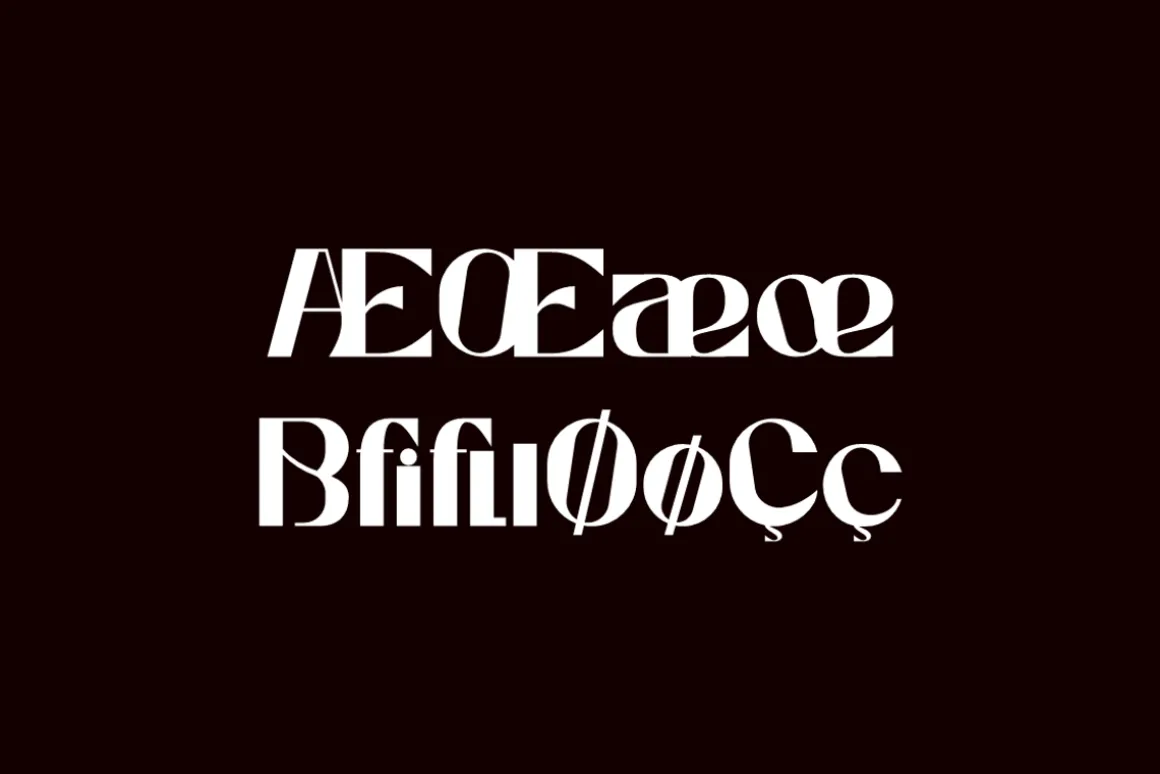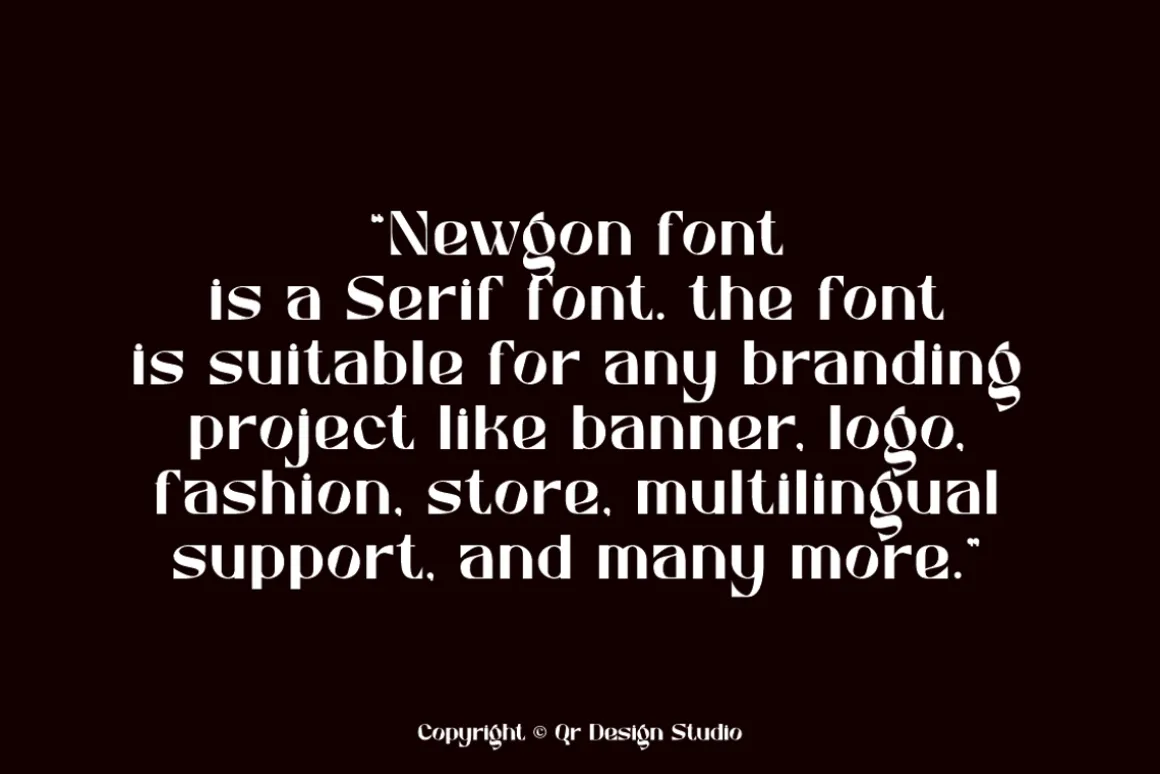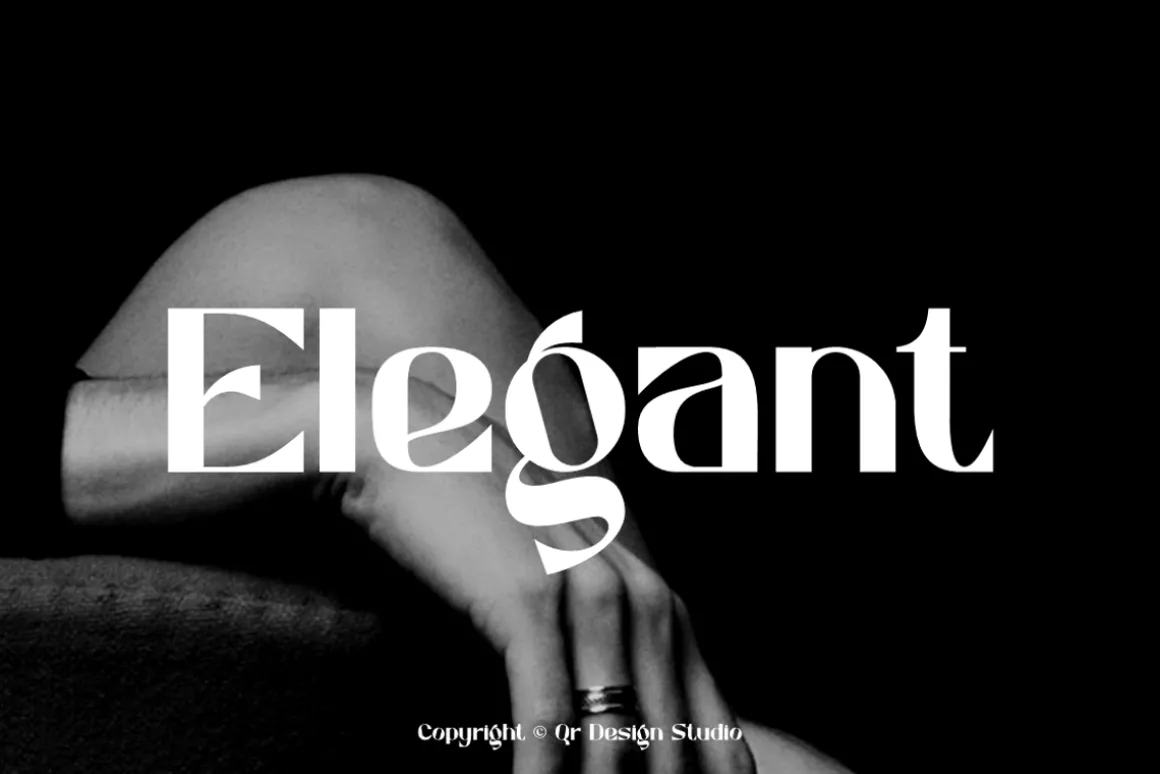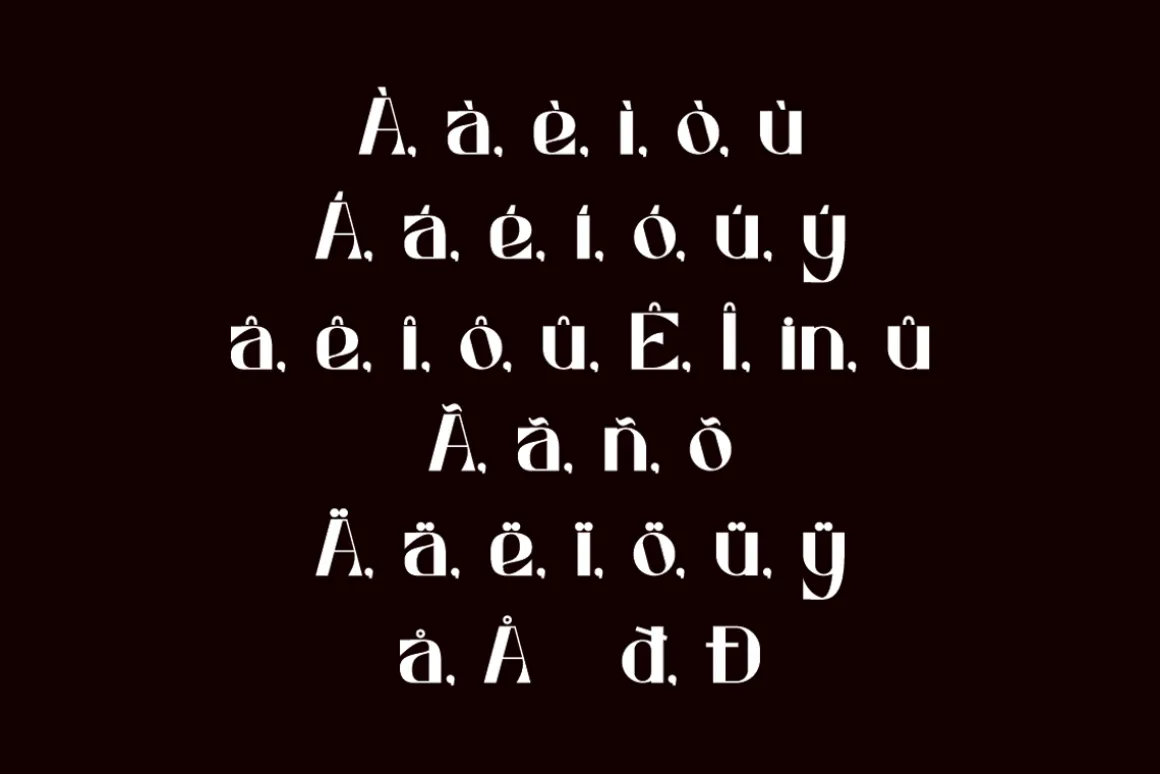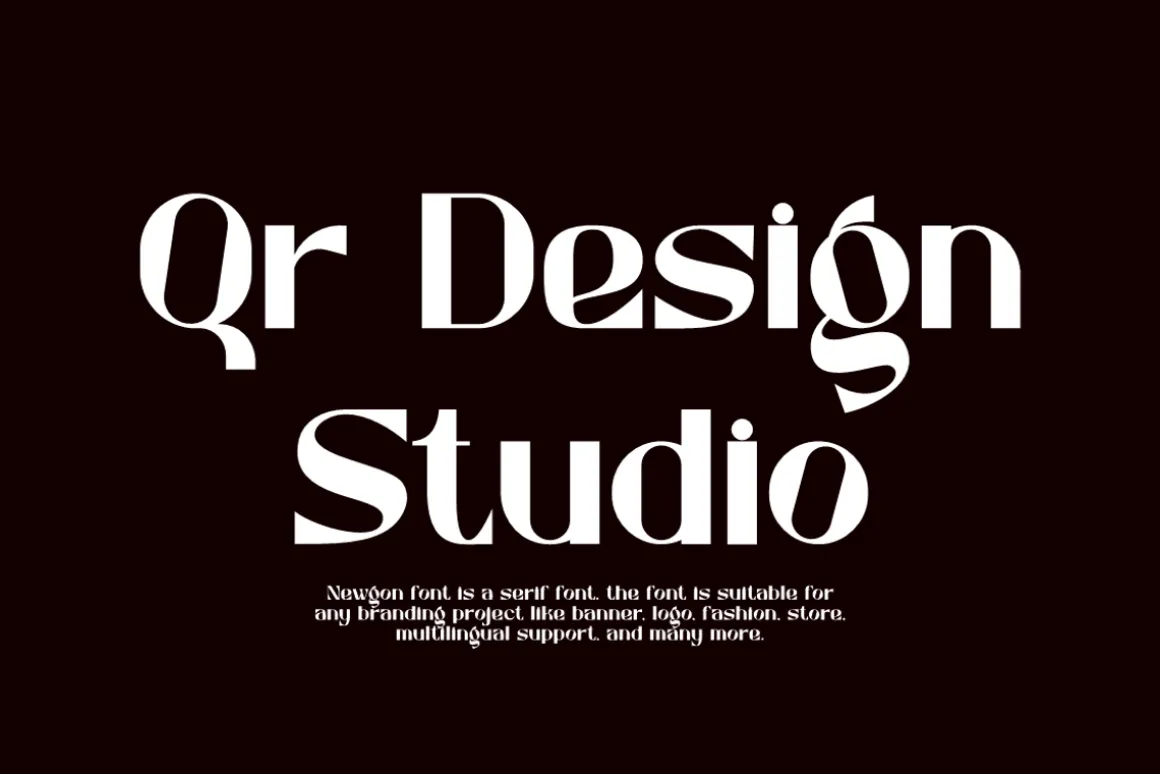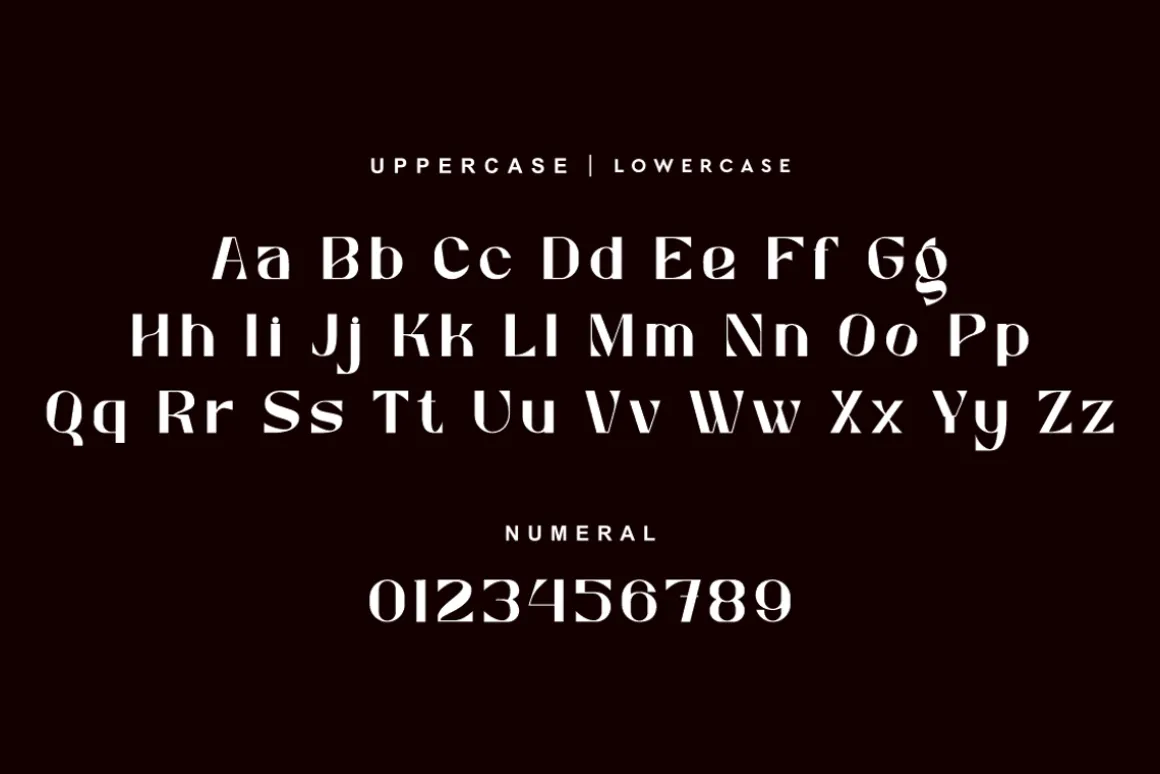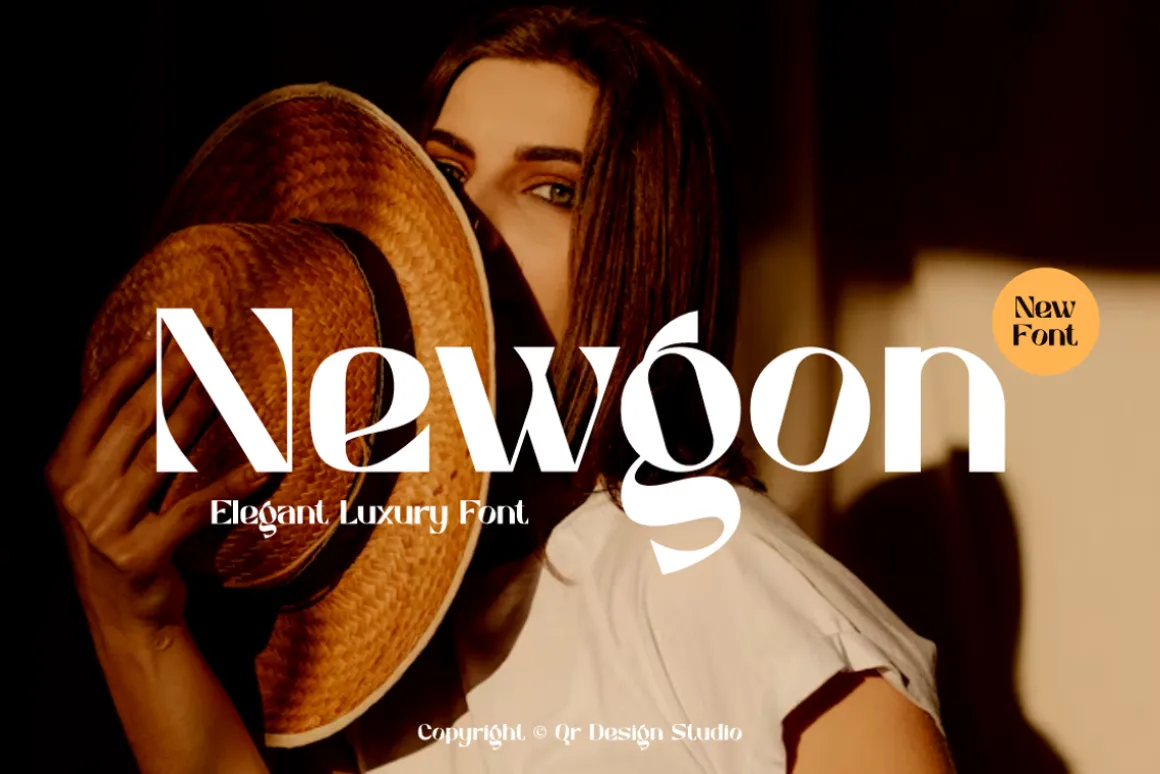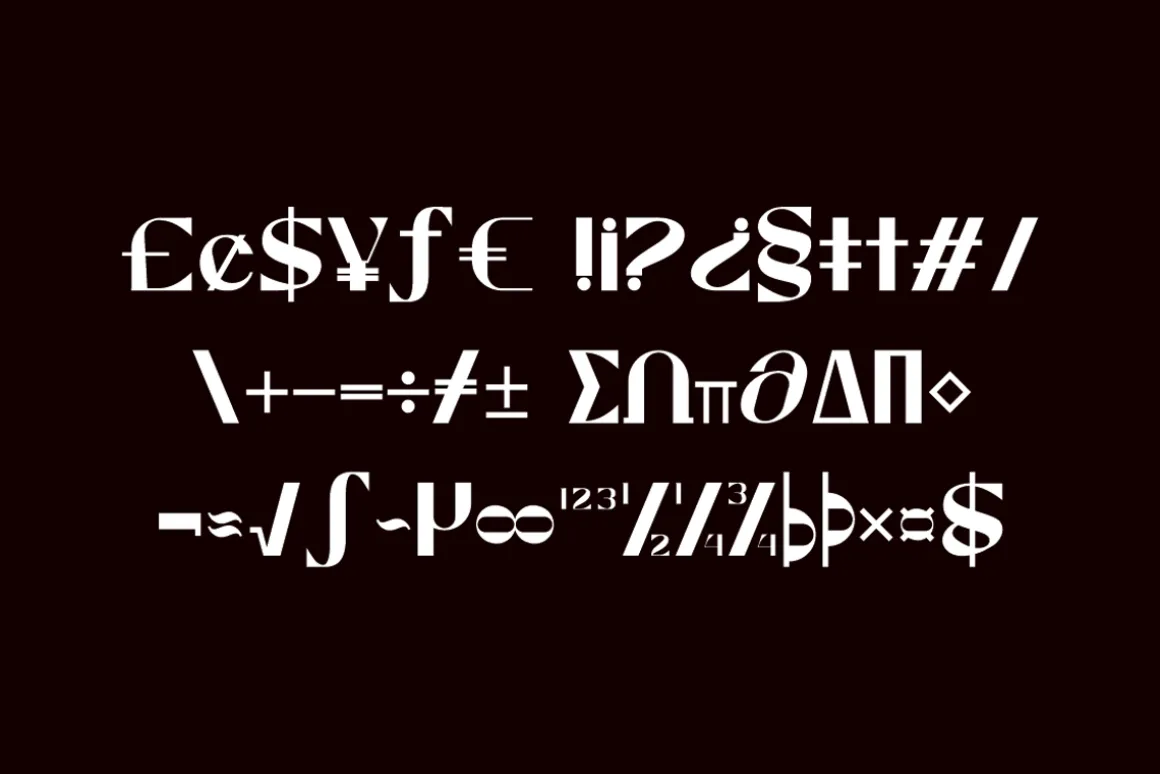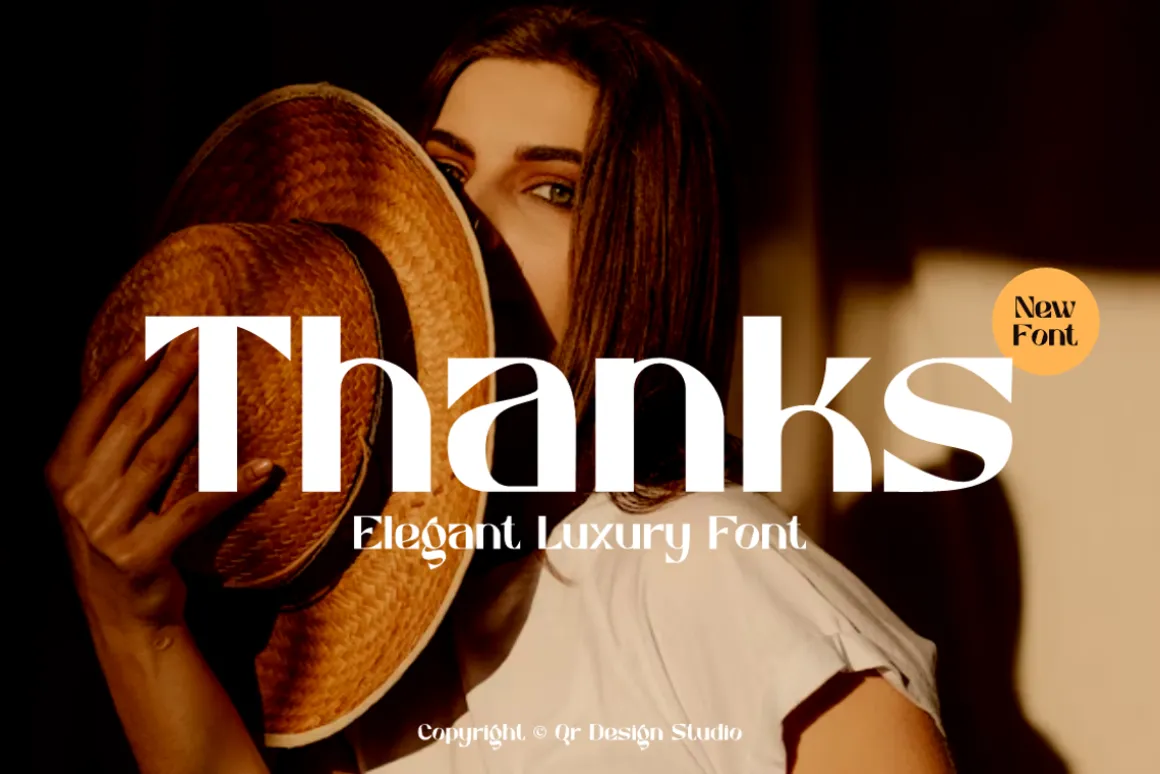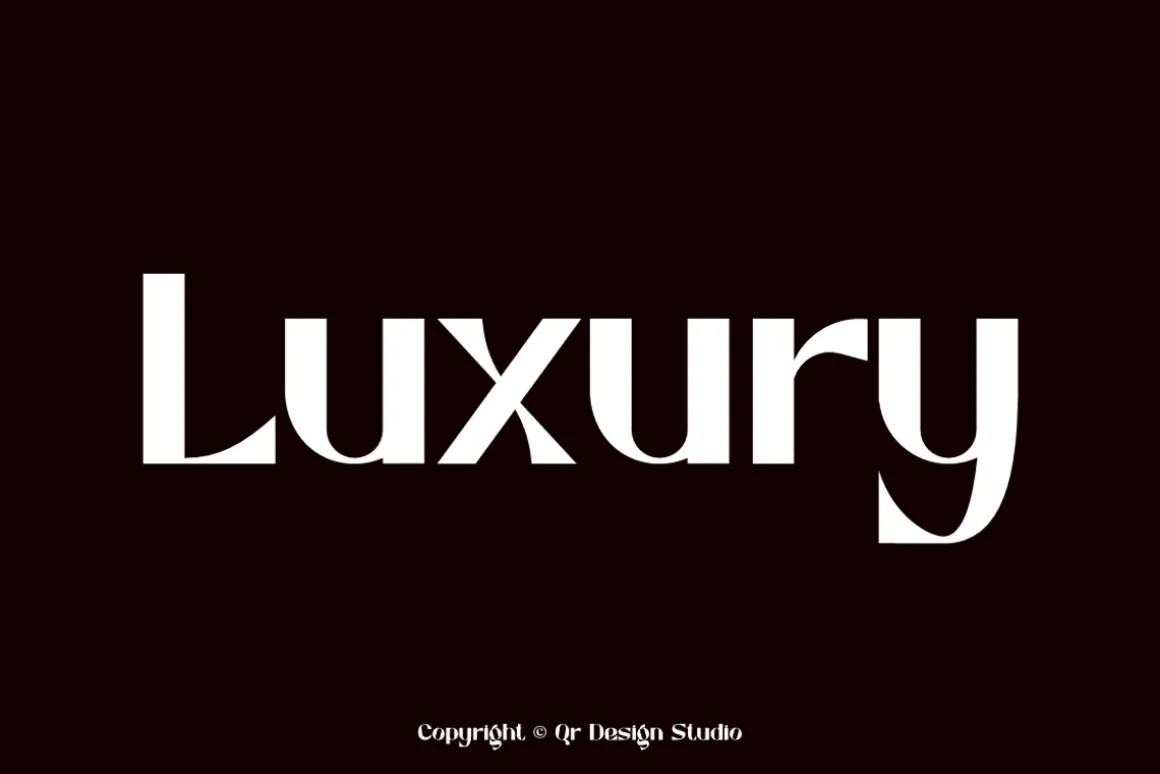
Newgon Font is a elegant and authentic display font.The font is suitable for any branding project like poster, logo, stylish, and many more.Outstanding in a wide range of contexts.